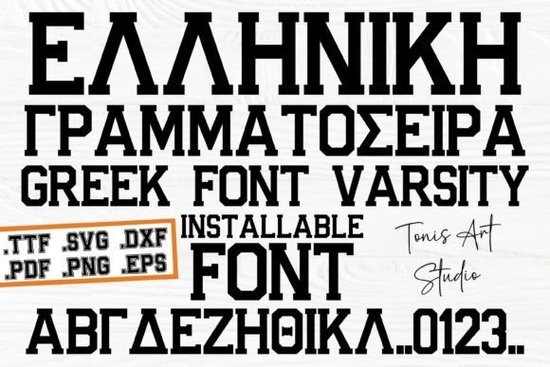
If you’ve ever wanted to add authentic Greek letters to your designs whether for fraternity apparel, academic projects, or themed home decor the Greek Varsity Font offers a clean, classic solution. Unlike generic symbol sets or clipart, this font integrates seamlessly into design software, letting you type real Greek characters with consistent style and spacing. It’s especially handy for crafters and small business owners who need reliable, professional-looking typography without the hassle of manual letter placement.
The font captures the spirit of collegiate tradition while keeping things modern and versatile. Each character is crafted with balanced proportions and subtle athletic flair, making it suitable for everything from embroidered varsity jackets to engraved keepsakes. Because it’s delivered as a standard font file (OTF/TTF), you can scale it to any size without losing quality ideal for both digital mockups and physical production.
What kinds of projects work best with Greek Varsity?
This font shines in contexts where Greek letters carry symbolic weight. Think beyond just sorority shirts:
- Custom apparel: Hoodies, tees, and caps for Greek life organizations or alumni events.
- Event signage: Welcome banners, table numbers, or photo backdrops for university formals or initiation ceremonies.
- Home & office decor: Framed monograms, desk plaques, or wall art featuring meaningful Greek initials.
- Print-on-demand products: Mugs, phone cases, or notebooks personalized with chapter letters.
Because the design leans classic rather than overly ornate, it pairs well with minimalist layouts or layered compositions. You won’t struggle to match it with complementary fonts it works smoothly alongside clean sans-serifs or even vintage-inspired typefaces like those in the vintage monograms pack.
How does it compare to other display fonts?
Not all decorative fonts handle non-Latin scripts well. Some “Greek-themed” fonts only include a few symbols or rely on Latin substitutes (like using “Y” for upsilon), which breaks authenticity. The Greek Varsity Font includes the full modern Greek alphabet, so you can accurately represent names, mottos, or academic terms.
If you enjoy bold, personality-driven type but want something less retro than the grunge groovy font or more grounded than the playful junior play font, this strikes a nice middle ground. It’s also more structured than the chaotic energy of the space invasion font, making it better suited for formal or semi-formal applications.
Tips for using Greek letters authentically
If your audience includes Greek speakers or scholars, accuracy matters. Here’s how to avoid common pitfalls:
- Use the correct case: Greek has uppercase and lowercase forms, just like English. The font supports both, so choose based on context (e.g., uppercase for emblems, lowercase for body text).
- Don’t mix scripts haphazardly: If combining Greek and Latin text, ensure visual harmony. Adjust tracking or weight so one script doesn’t overpower the other.
- Verify letterforms: Some fonts stylize letters beyond recognition. With Greek Varsity, characters like phi (φ), psi (ψ), and omega (ω) remain legible while retaining stylistic charm.
Also, remember that Greek letters often carry specific meanings in academic or organizational settings. Double-check that your chosen letters align with your client’s or community’s expectations especially for custom orders.
Getting started with your first project
Once installed, the font works in virtually any design program: Canva, Adobe Illustrator, Silhouette Studio, Cricut Design Space, and more. For print-on-demand sellers, test how it renders at small sizes (like on a keychain) versus large formats (like a wall poster). Its clean lines hold up well across scales.
If you’re building a brand around Greek-letter merchandise, consider pairing it with neutral backgrounds or school colors to let the typography stand out. And if you’re creating templates for resale, bundle it with related assets like borders from the Greek Varsity collection or coordinating numerals.